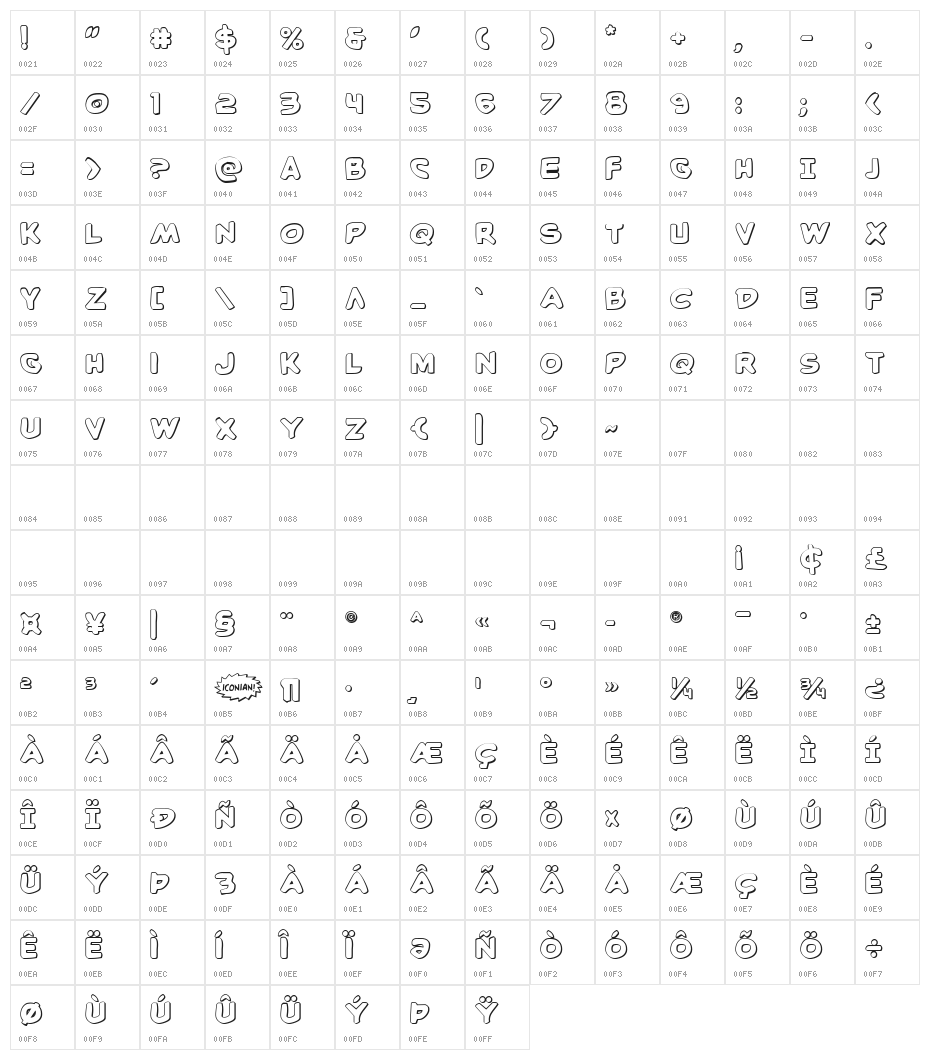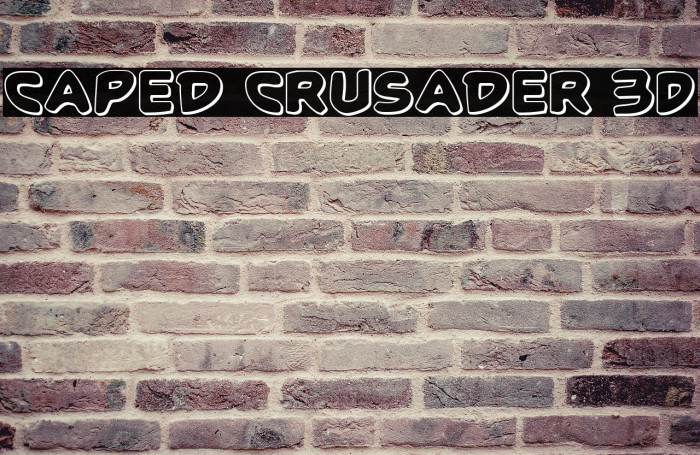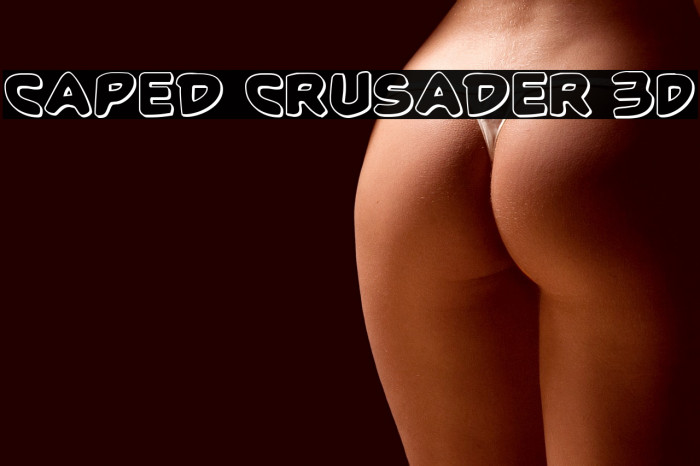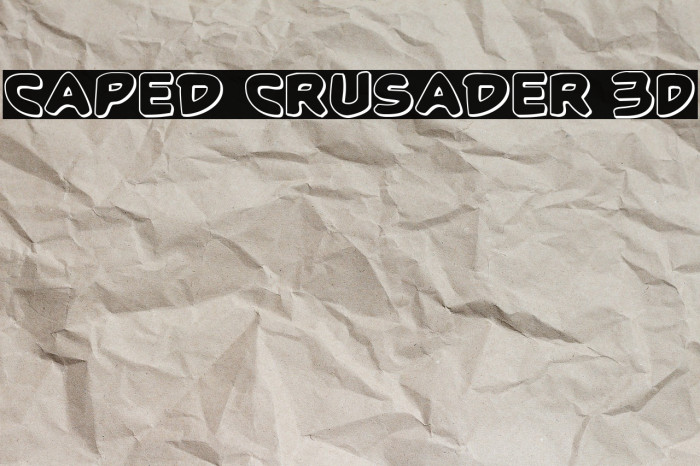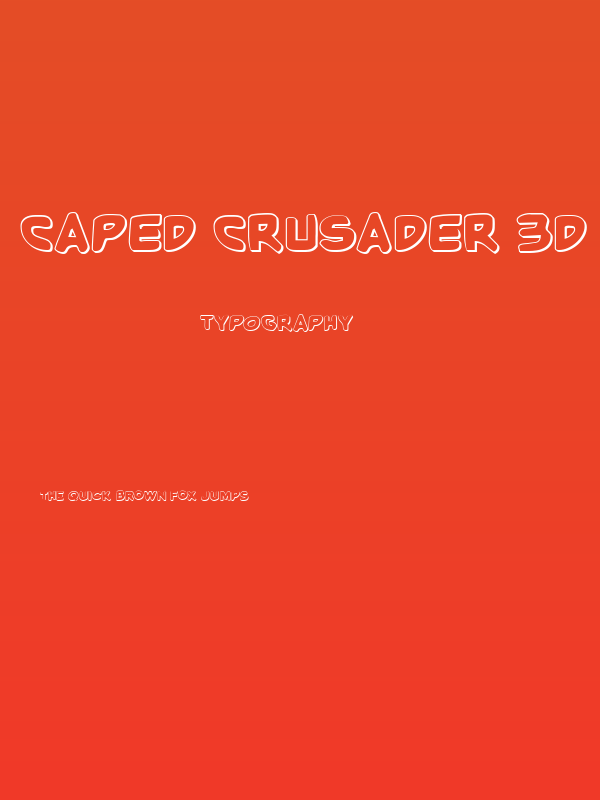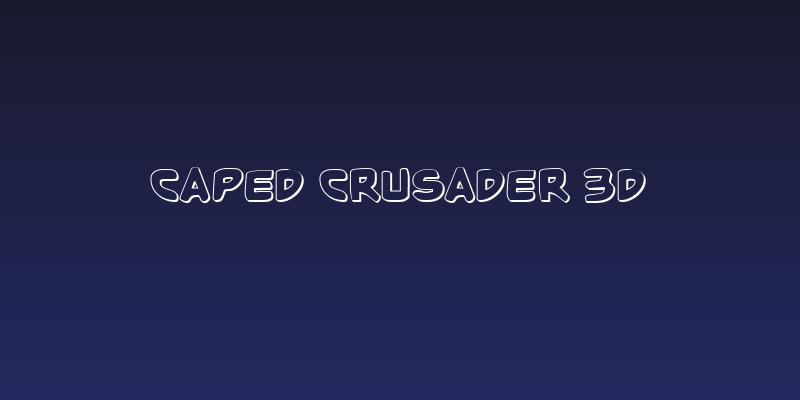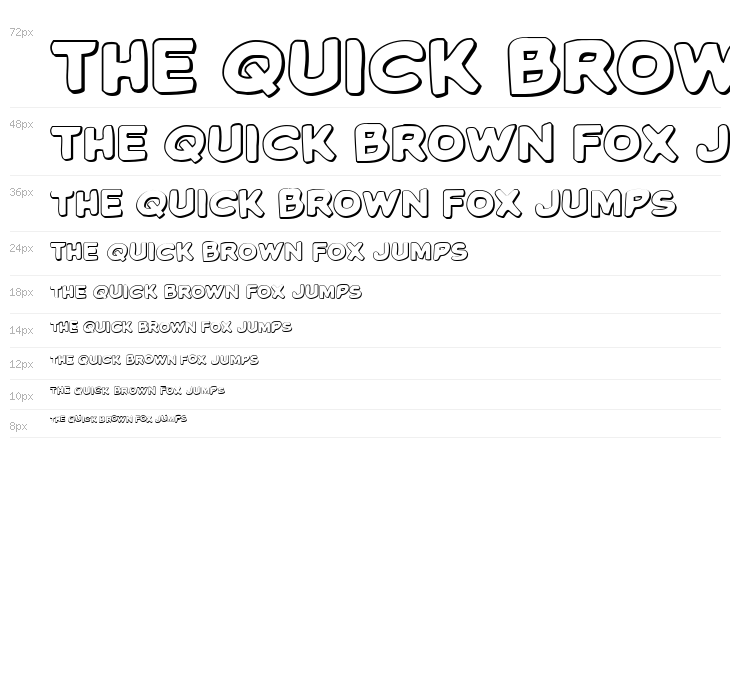
Caped Crusader 3D Font
Caped Crusader 3D Description
This font features a bold, playful design with a three-dimensional effect that gives it a dynamic and eye-catching appearance. The letters are outlined with a thick black border, enhancing their visibility and adding a cartoonish flair. The characters are rounded and slightly inflated, reminiscent of comic book styles, making them ideal for projects that require a fun and engaging look. The font maintains uniformity in its structure, ensuring readability while also providing a unique stylistic touch. Its boldness and distinct outline make it suitable for various creative applications.
| Overall Style | Playful, Cartoonish |
| Proposed Projects | Ideal for comic books, children's books, playful branding, and eye-catching posters. |